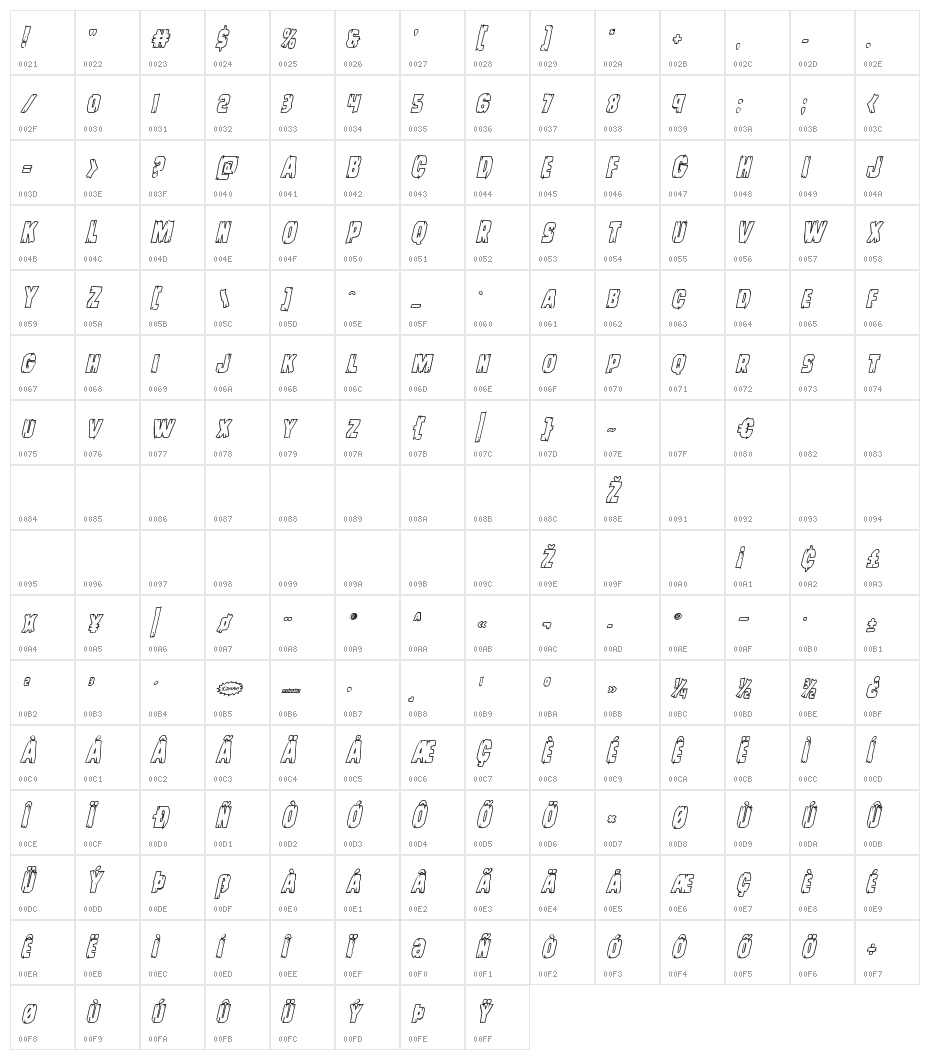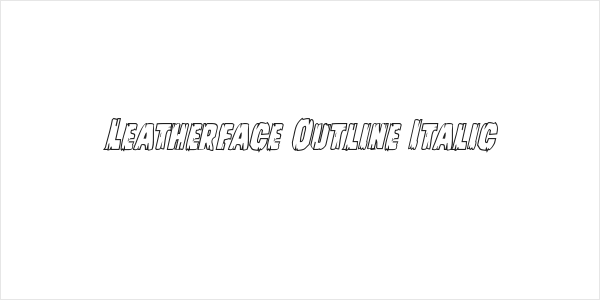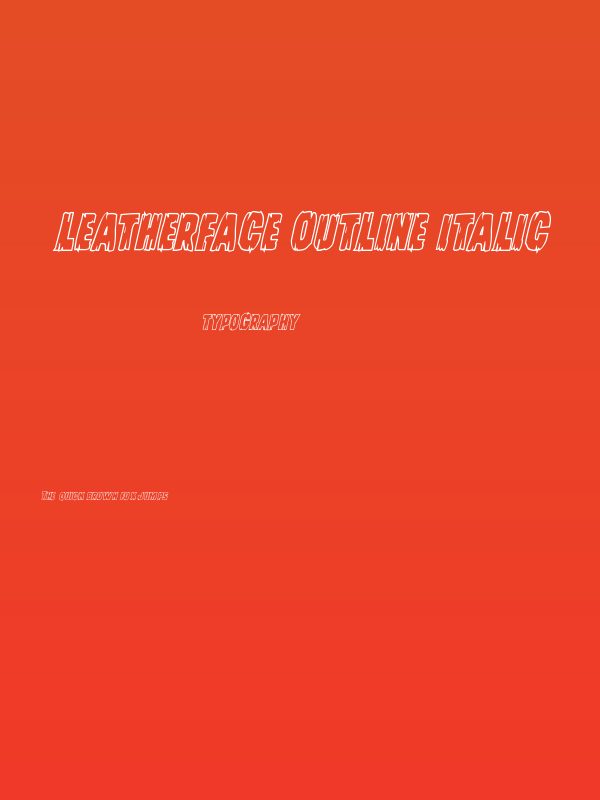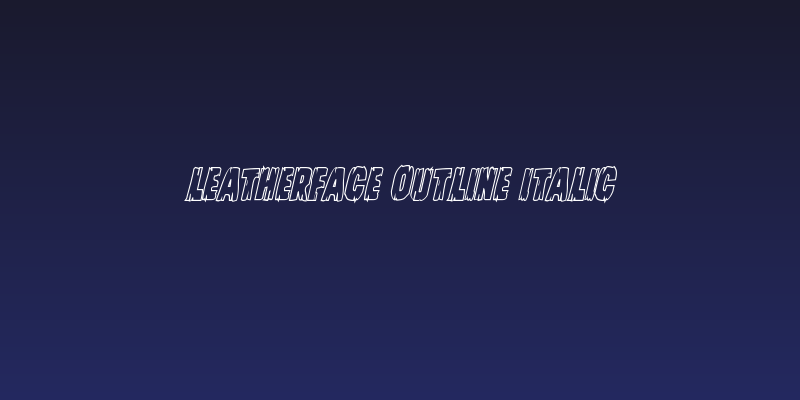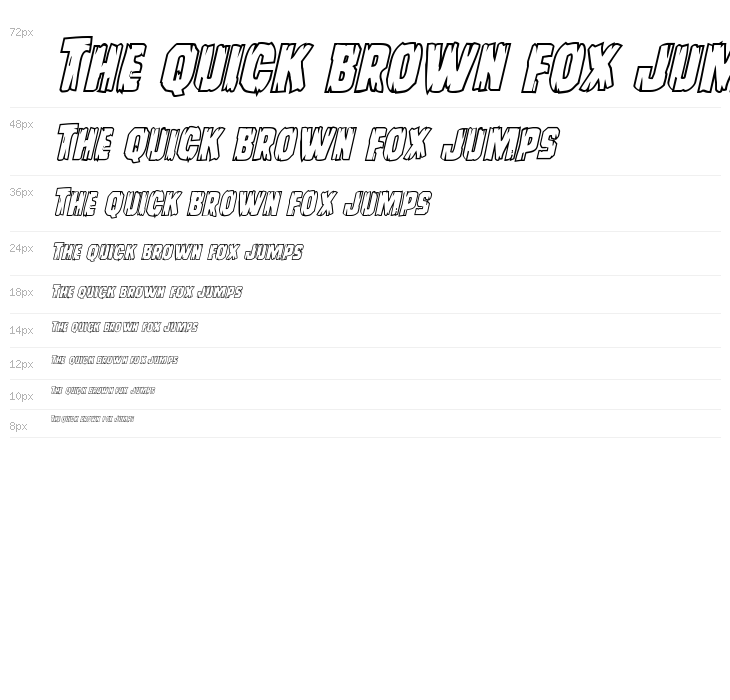
Leatherface Outline Italic Font
Leatherface Outline Italic Description
This font features a bold, dynamic style with an outline effect that gives it a striking and edgy appearance. The italic slant adds a sense of motion and urgency, making it ideal for attention-grabbing designs. Each character is outlined with a rugged, slightly distressed look, enhancing its boldness and making it stand out. The uppercase and lowercase letters maintain a consistent style, with sharp angles and a slightly condensed form. The numbers and special characters follow the same design, ensuring a cohesive look across all text elements.
| Proposed Projects | Ideal for posters, video game graphics, horror-themed designs, and edgy branding projects. |